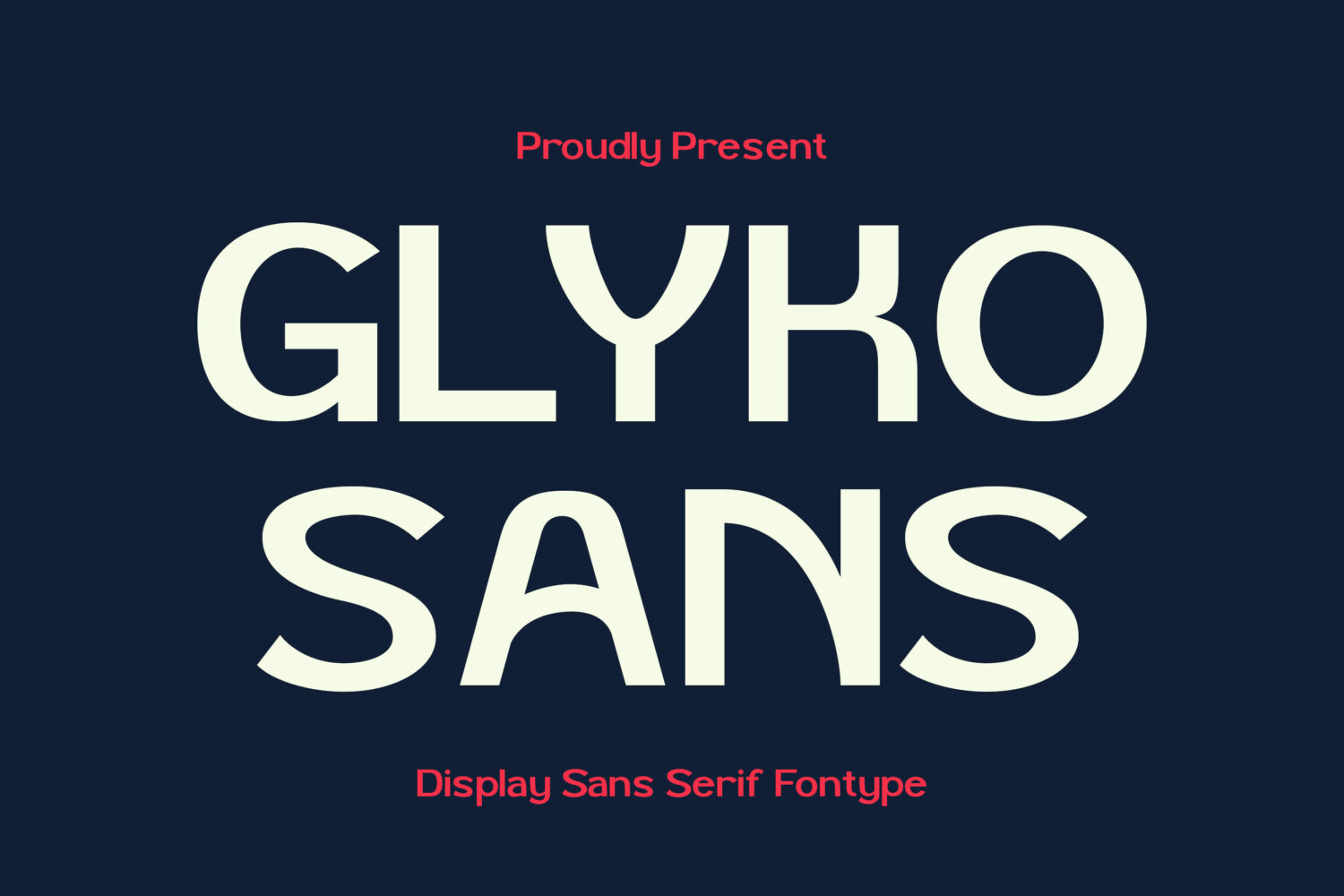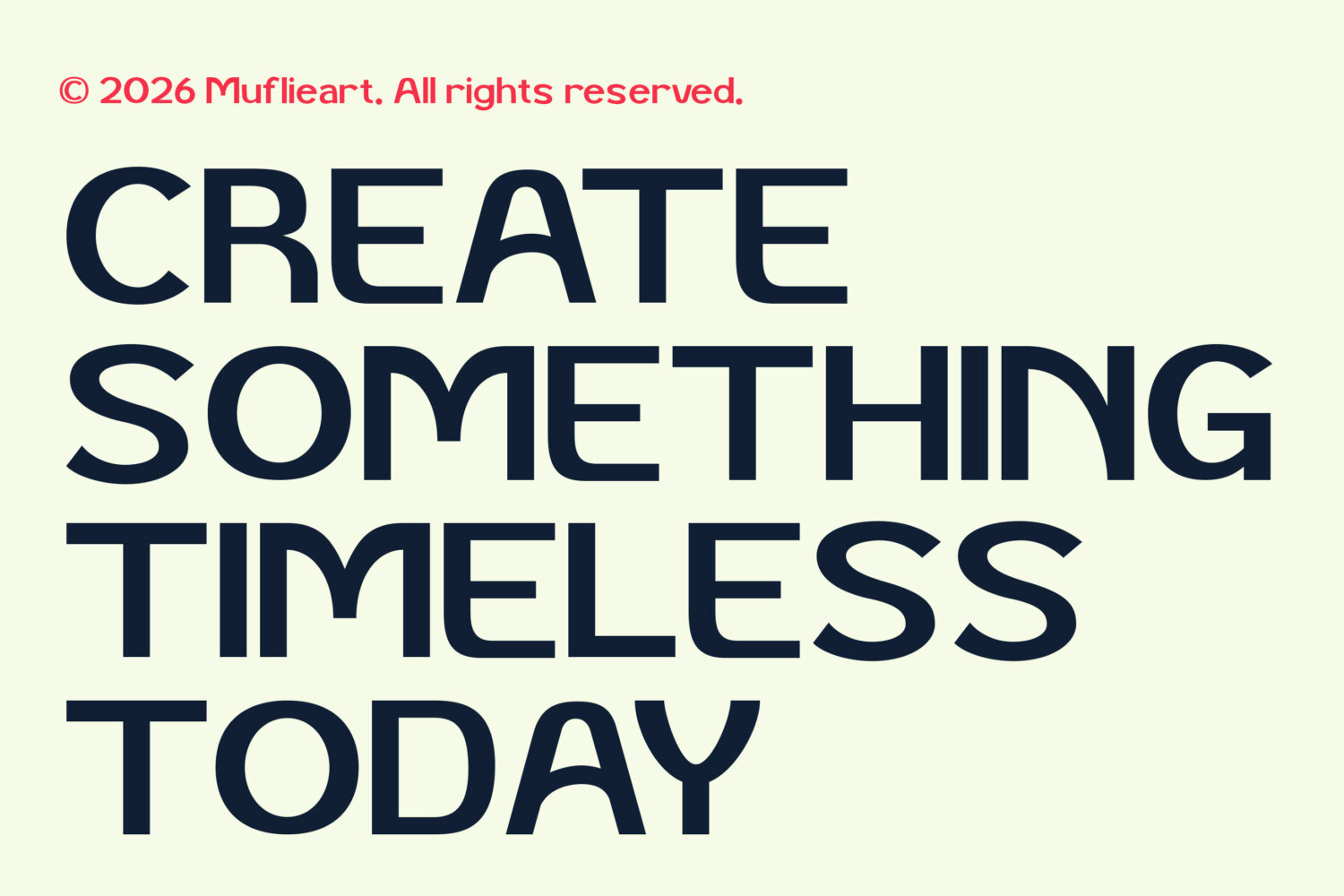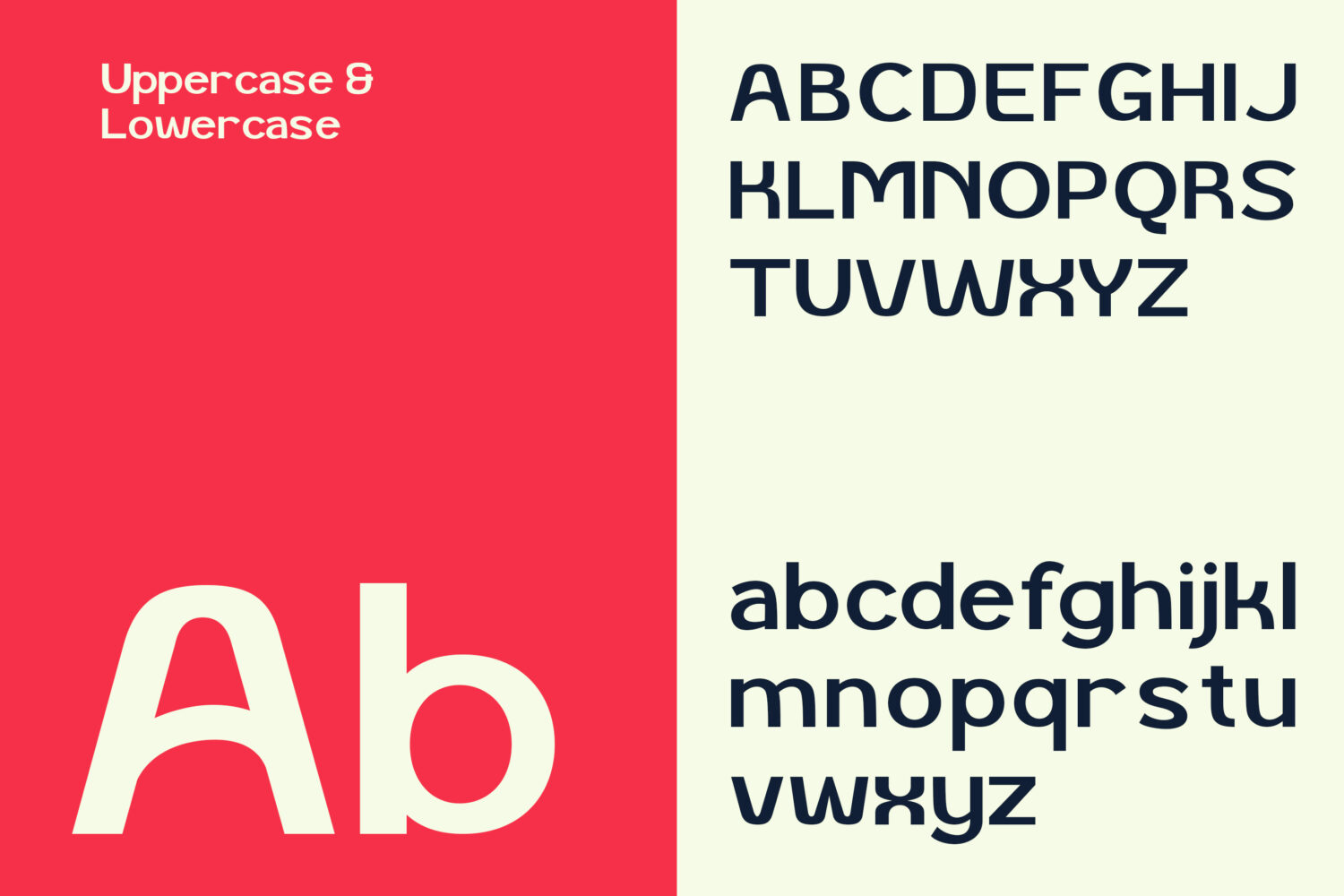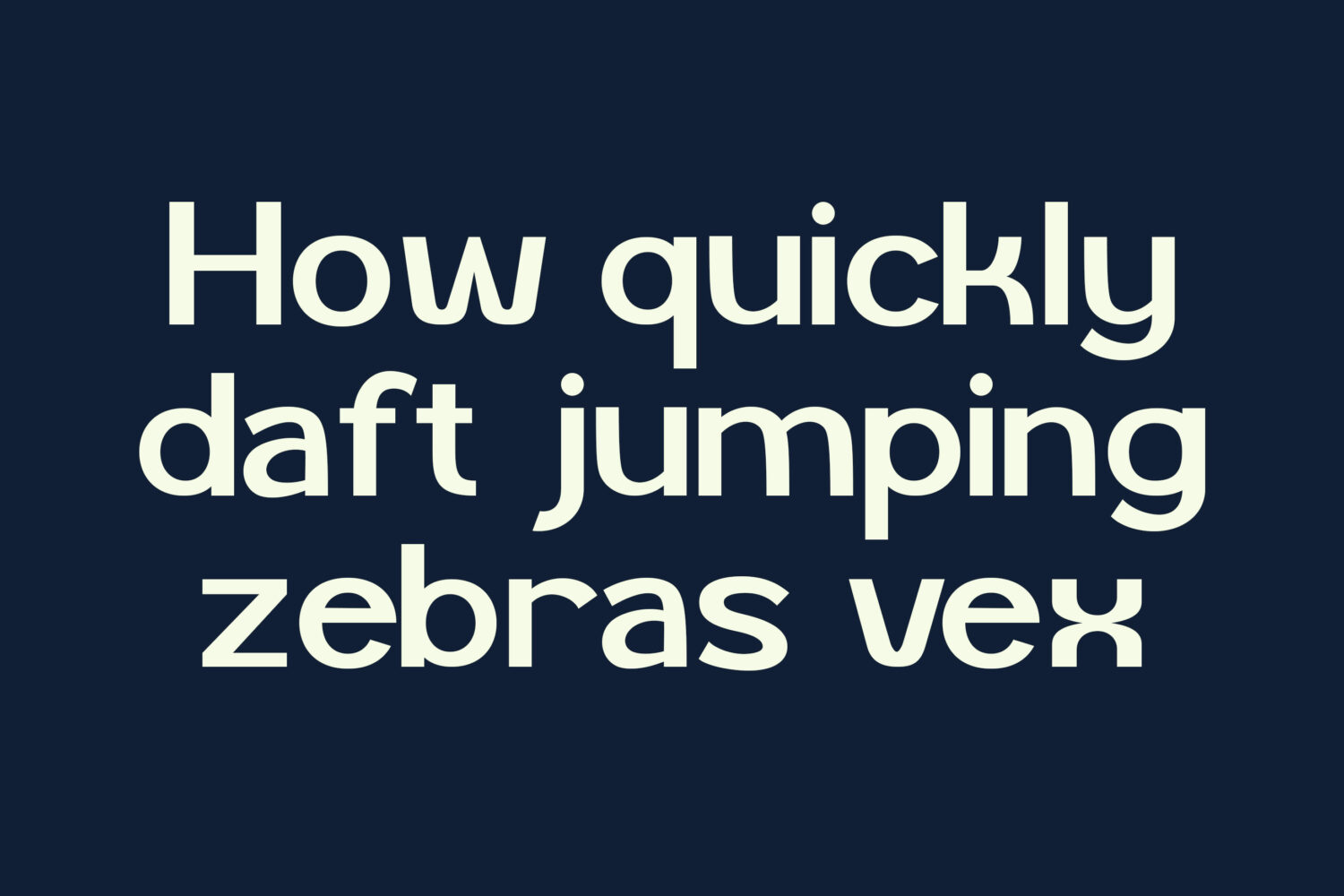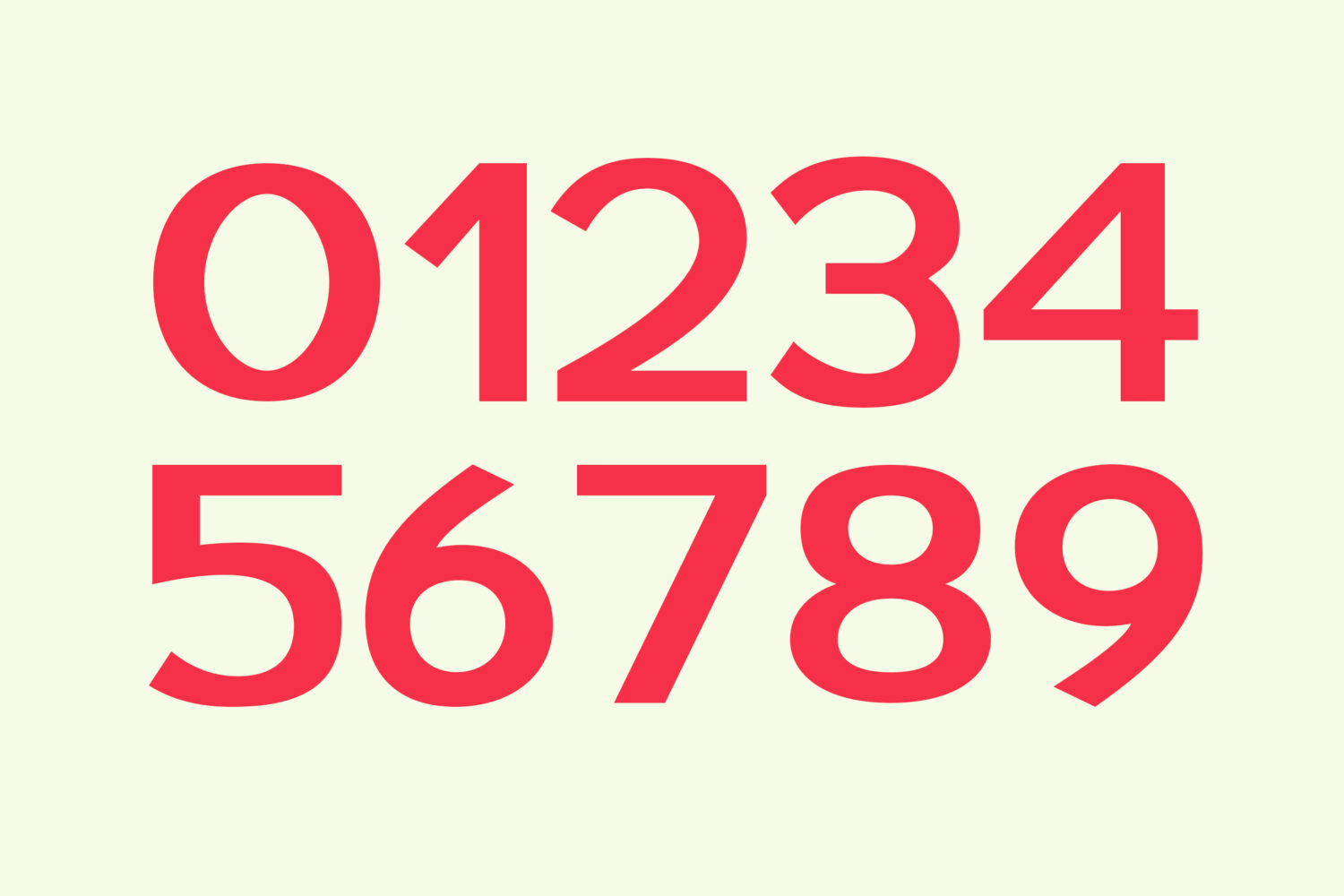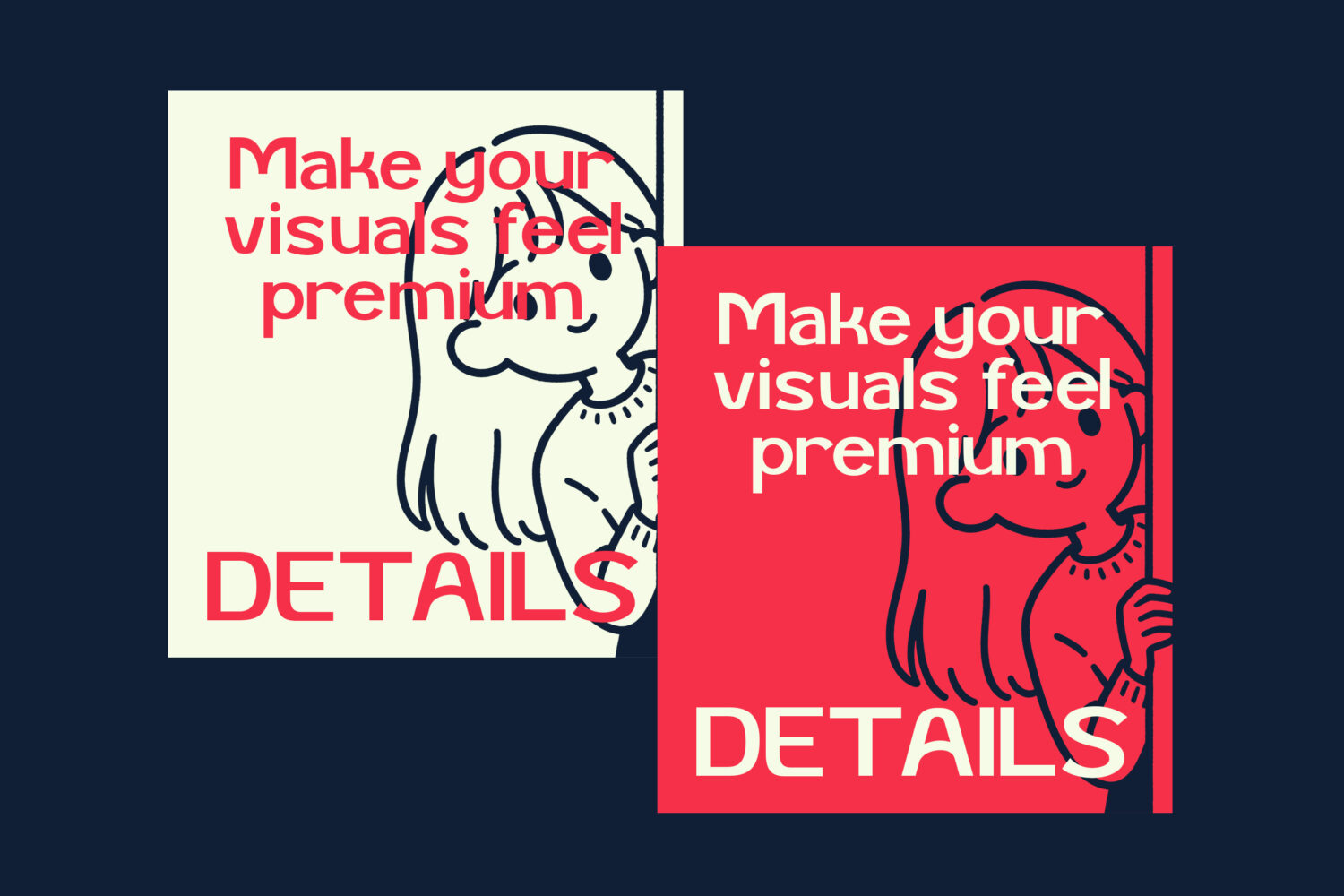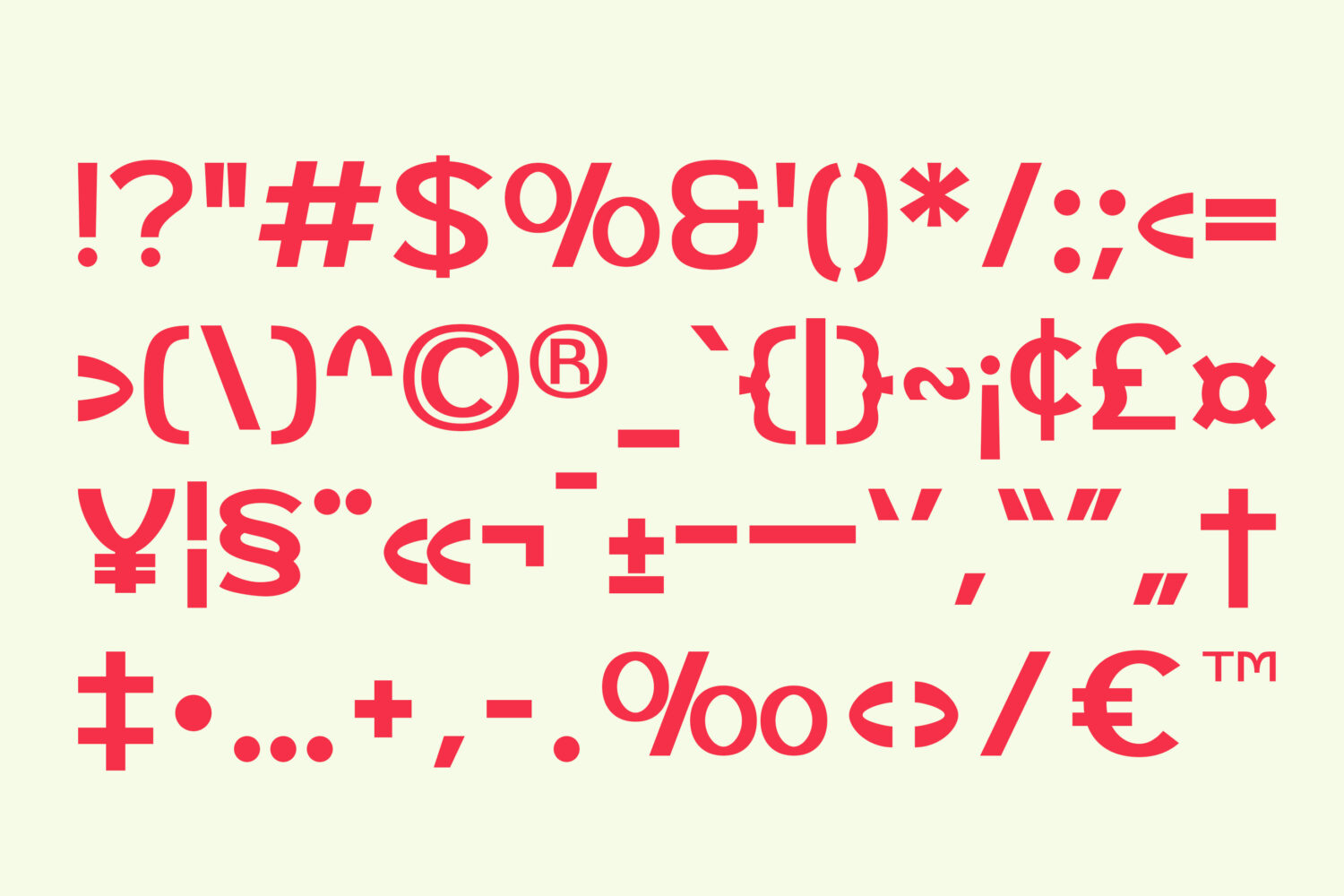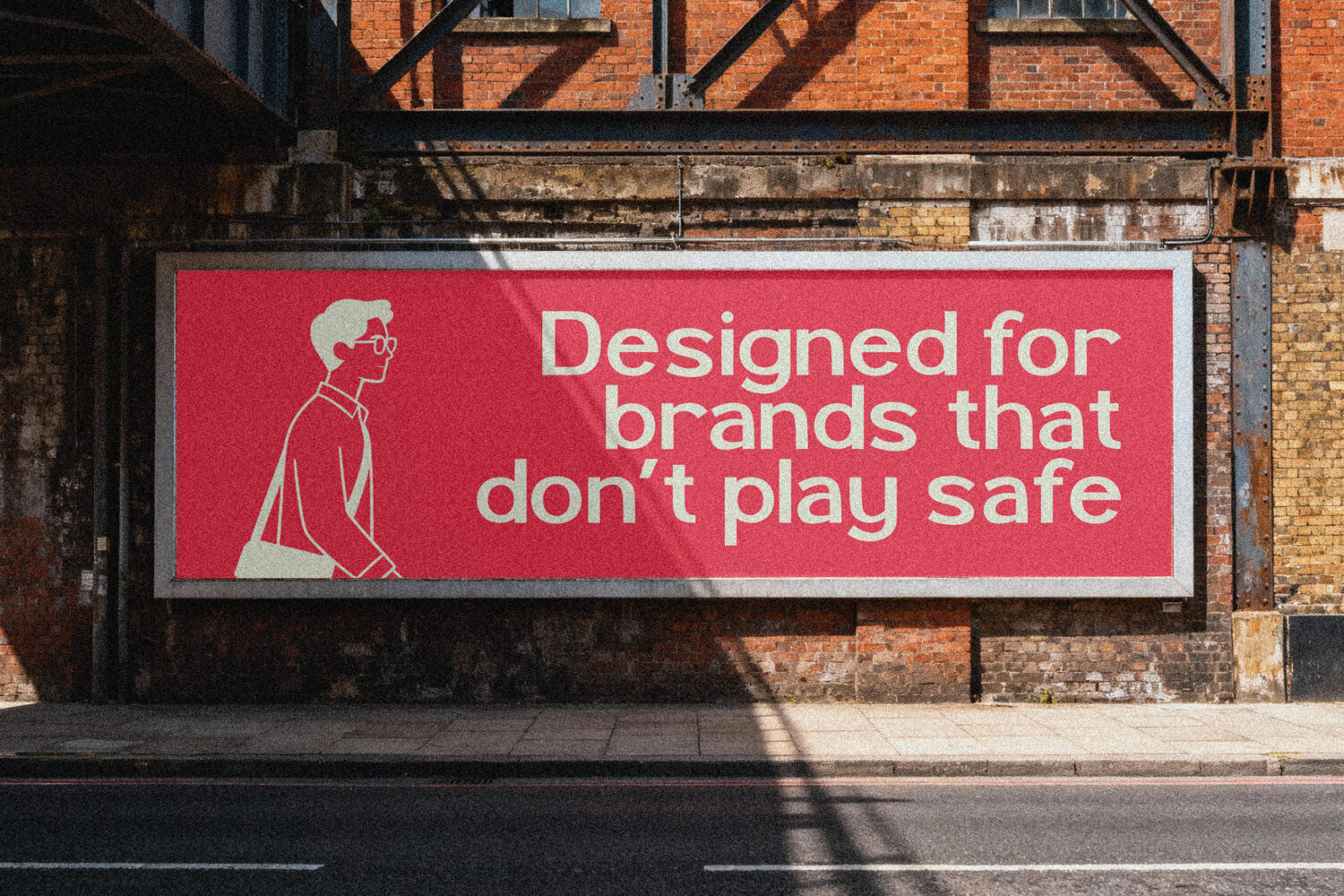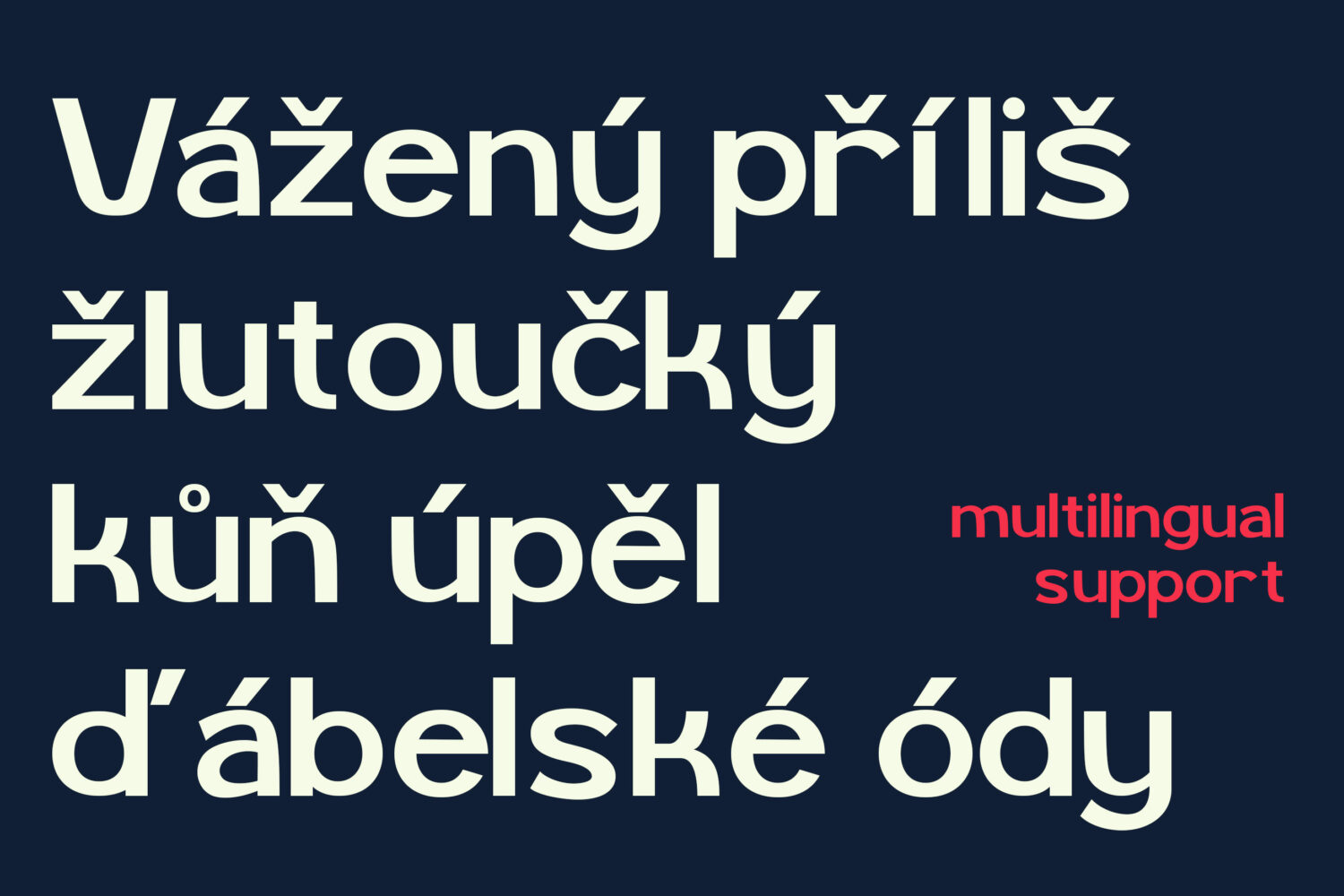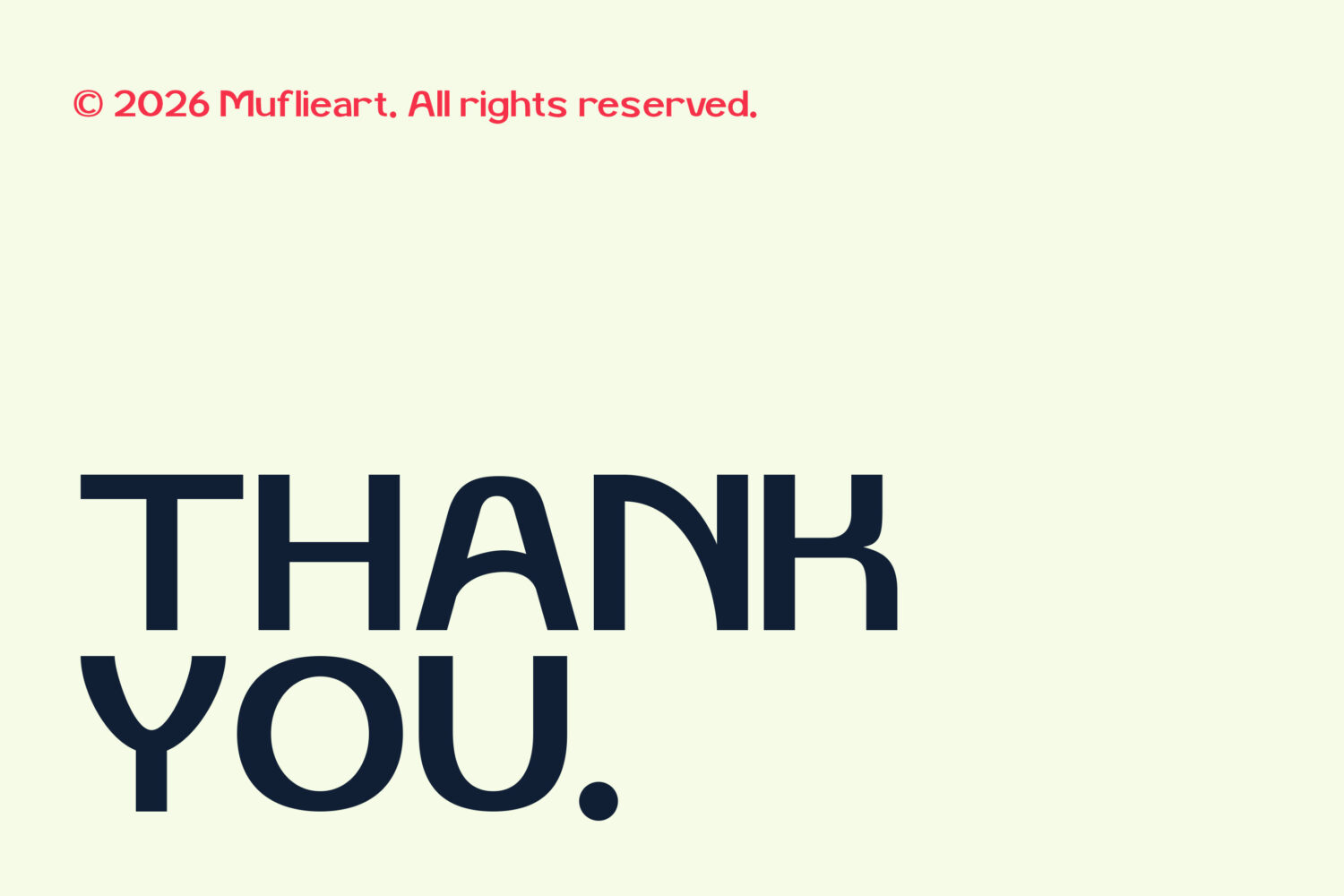
**Glyko Sans** is a modern sans-serif typeface designed with precision and intention. With its clean lines, balanced curves, and versatile form, Glyko Sans brings a sense of quiet confidence to every composition — whether in branding, editorial layouts, UI design, or minimalist packaging.
Crafted to prioritize legibility and elegance, Glyko Sans blends contemporary aesthetics with timeless simplicity. Each character is designed to speak clearly and effortlessly, making it the perfect choice for designers who value function without sacrificing style.
Whether you’re building a digital interface or refining a brand’s visual voice, Glyko Sans delivers a crisp, modern tone that adapts seamlessly across mediums.
Feature :
* Uppercase
* Lowercase
* Numeral
* Functional
* Multilingual